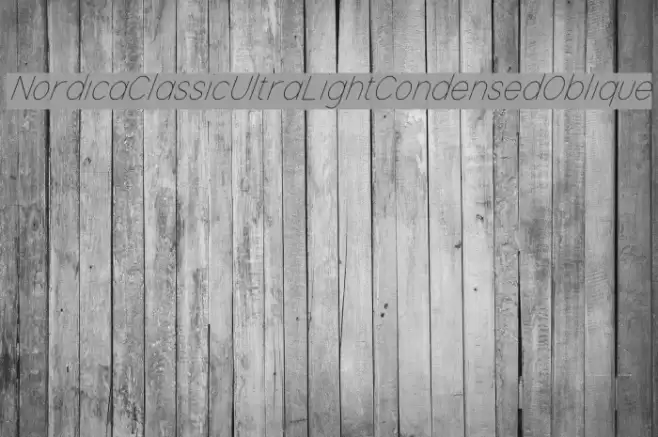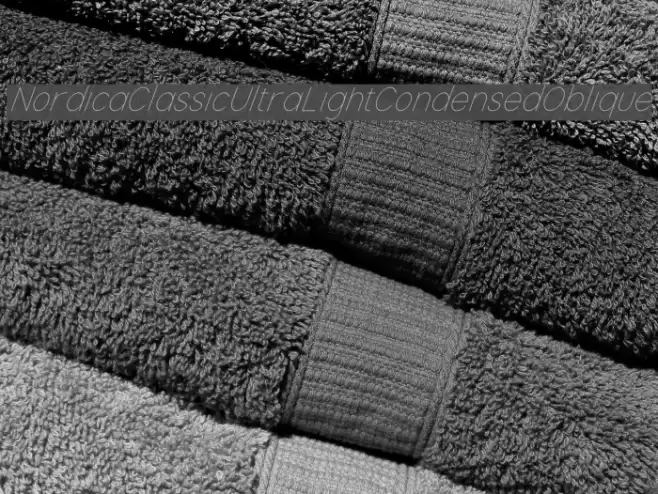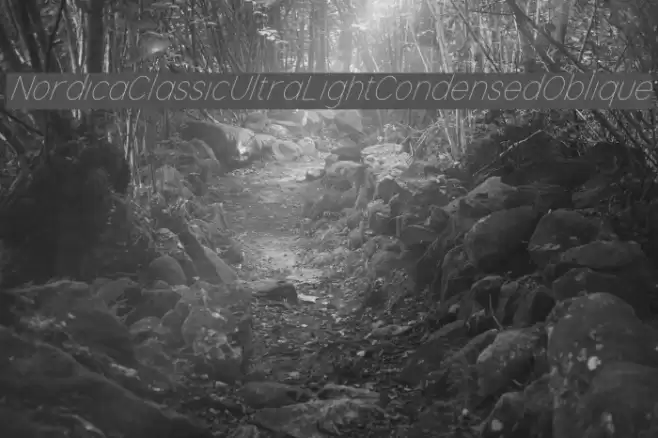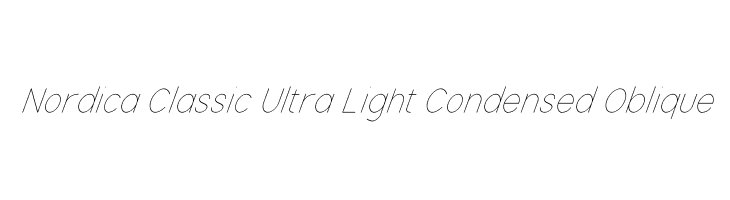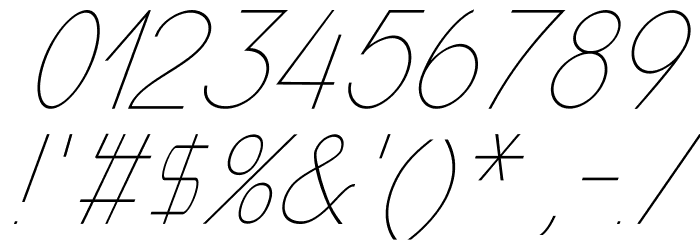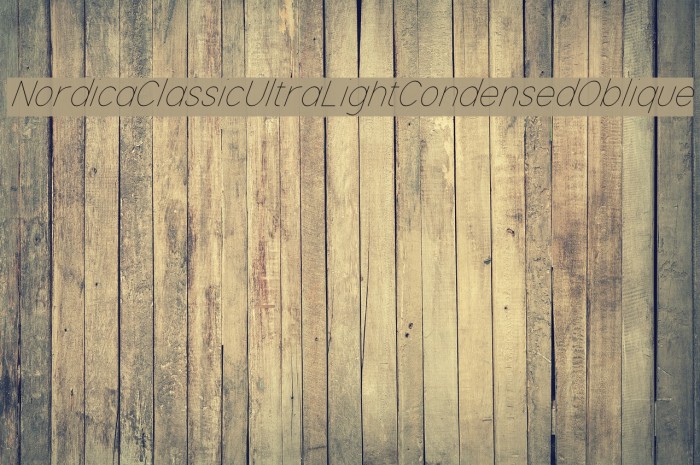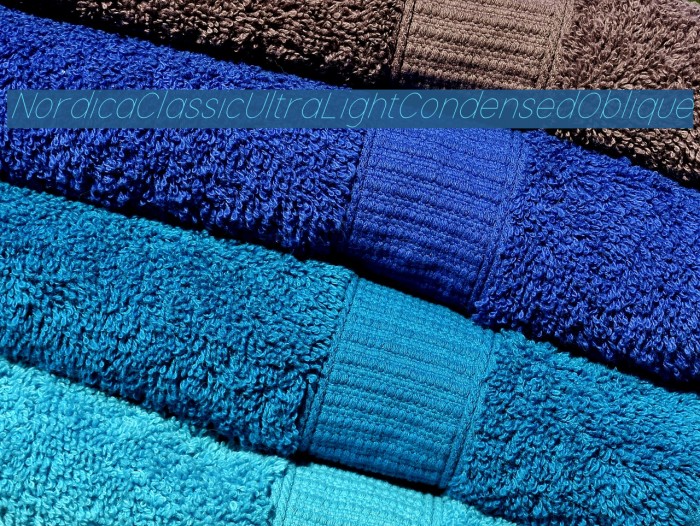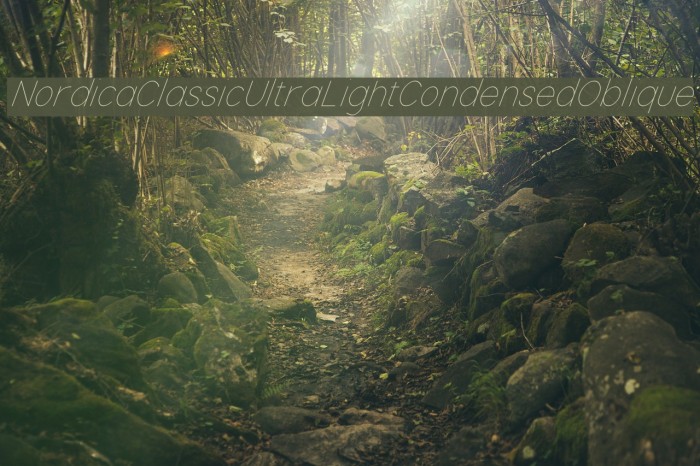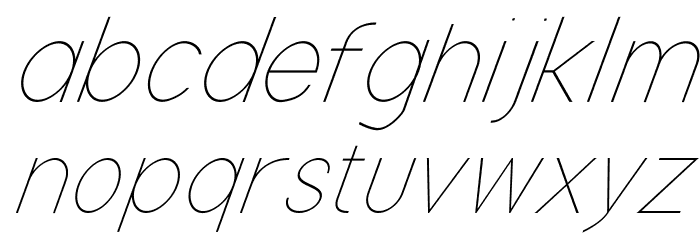
Nordica Classic Ultra Light Condensed Oblique Font
Nordica Classic Ultra Light Condensed Oblique Description
This font features a sleek and elegant design with ultra-light strokes and a condensed form. The oblique style adds a dynamic and modern touch, making it ideal for contemporary design projects. The characters are well-defined with a minimalist aesthetic, emphasizing clarity and sophistication. The uppercase and lowercase letters maintain a consistent style, while the numerals and special characters complement the overall design. The font's thin lines and slanted orientation create a sense of movement and fluidity, perfect for projects that require a refined and stylish appearance.
A sleek, ultra-light, condensed oblique font with a modern aesthetic from Uncategorized fonts.